A logo file lands in your inbox: perhaps it is a low-resolution PNG pulled from an old website, a screenshot from social media, or a scan of stationery from years ago. The obvious question follows: what is the font used in this logo? Unfortunately, the person who designed it may no longer work with the business, the original vector files may be missing, and nobody can find the style guide.
The good news is that you do not always need to track down the original designer to get font from logo artwork. With a clean image and the right workflow, you can often identify the logo typeface, find a close match, or convert the visible lettering into a usable font file. The best route depends on whether the logo uses an existing typeface, a modified font, or fully custom lettering.
This guide explains how to extract font from logo images quickly, what a logo font finder can and cannot tell you, and how to avoid the common mistakes that produce a font that looks "almost right" but fails in real-world use. It also covers the practical steps after identification, including licensing, testing, and rebuilding missing characters.
Why Logo Fonts Get Lost So Often
A logo is not necessarily a live text object. Once a designer finalizes a mark, they commonly convert the letters to outlines in an Illustrator, EPS, SVG, or PDF file. Outlining is useful because it prevents font-substitution problems when the file is opened elsewhere. However, it also removes the editable font information. A vector logo can look pristine while containing no clue about the original typeface name.
The problem becomes more difficult when only raster versions remain. PNG, JPG, WebP, and screenshots store pixels rather than letter data, so they cannot tell your design application which font created the lettering. The same applies to images copied from a website header, an embroidered cap, a storefront sign, or a scanned brochure. You can see the letters, but the font metadata is gone.
There is another complication: many brand marks are not set in an untouched commercial font. A designer may begin with a familiar sans serif, then alter the R leg, tighten the kerning, reshape an O, add a custom ligature, or redraw the whole wordmark by hand. In that case, an attempt to identify logo font may return several similar families but never an exact result. That is not necessarily a failed search; it is useful evidence that the mark is customized.
Finally, a company may have changed its logo typeface over time. Before replacing a sign, producing packaging, or recreating an old document, establish which version you are looking at. Compare the image date, colors, icon style, slogan, and letterforms with archived website pages or old social posts. A 2016 logo may use a completely different font from the current brand logo.
The key takeaway is simple: treat the existing logo as visual source material rather than as proof that the original font file still exists. Your goal is to decide whether you need the exact source font, a visually compatible match, or a newly generated font based on the lettering you have.
How to Extract a Font From a Logo Image
A fast workflow for identification, matching, and conversion
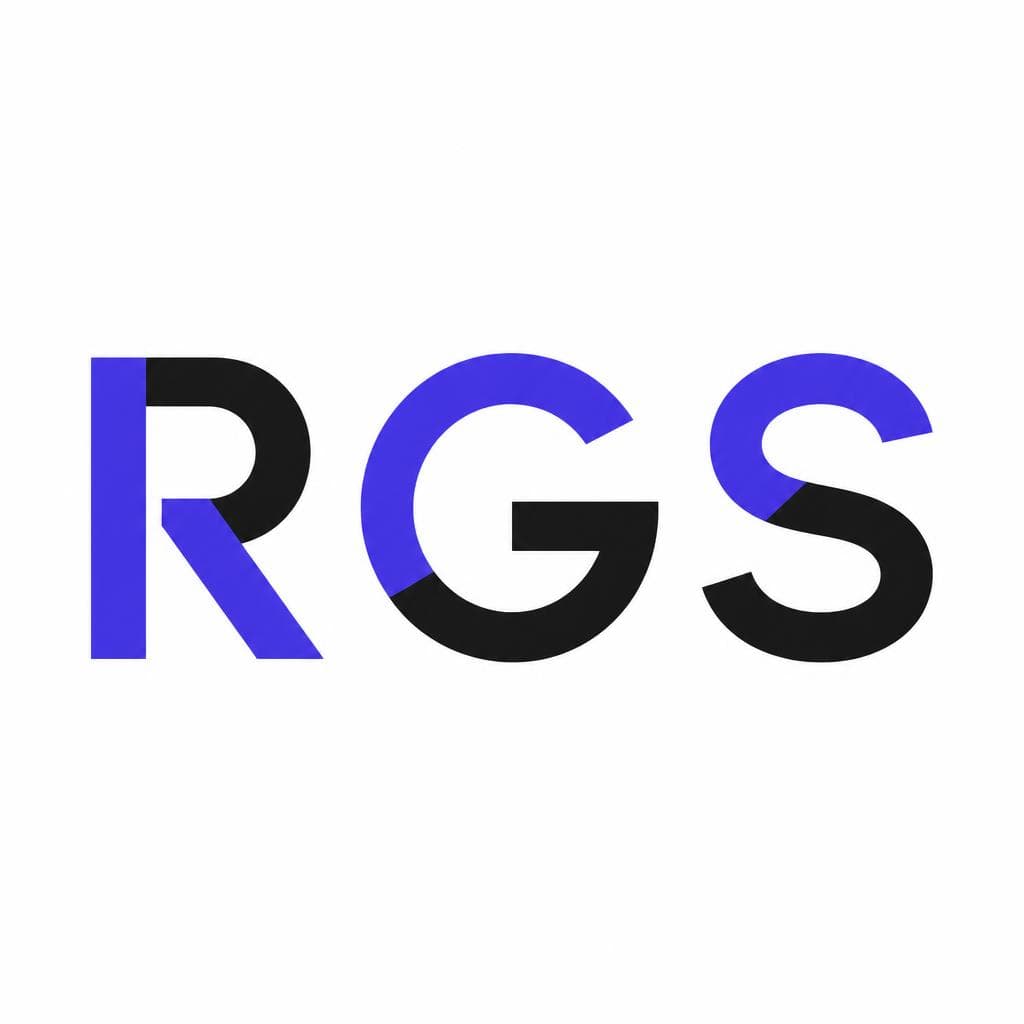
Start with the best image you can find. A high-resolution PNG with sharp edges is usually preferable to a compressed screenshot, but a clean vector export is better still. If you have multiple versions, choose the one with the largest, clearest lettering and the least texture, shadow, perspective distortion, or background clutter. A logo at 1,500 pixels wide gives you much more reliable results than one at 150 pixels wide.
Next, isolate the wordmark. Crop out icons, taglines, borders, mockup backgrounds, and unnecessary empty space. If the logo is light lettering on a dark background, invert it or place it on a plain white background. Improve contrast if needed, but avoid aggressive sharpening that creates jagged edges or changes the shapes of terminals and curves. For type recognition, clean contours matter more than decorative effects.
Then inspect a few distinctive characters manually. Do not begin with the entire word alone. Look for clues such as a single-storey versus double-storey a, the shape of the lowercase g, the tail on Q, the crossbar height of A, the leg of R, the width of S, and whether dots, periods, or punctuation are circular or square. For example, a geometric circular O combined with a very low crossbar on A suggests a different family category than a humanist sans with open apertures. These small details help you judge whether a suggested match is credible.
A conventional logo font finder is useful when you suspect the lettering comes from a standard font. Upload the cleaned image to a visual font-matching service, review its candidates, and compare the actual letterforms rather than trusting the first result. Enter the exact logo word into each candidate font if possible. Pay particular attention to the most recognizable letters, not just the overall feeling. Two fonts may both seem like bold rounded sans serifs until you compare the G, e, and R side by side.